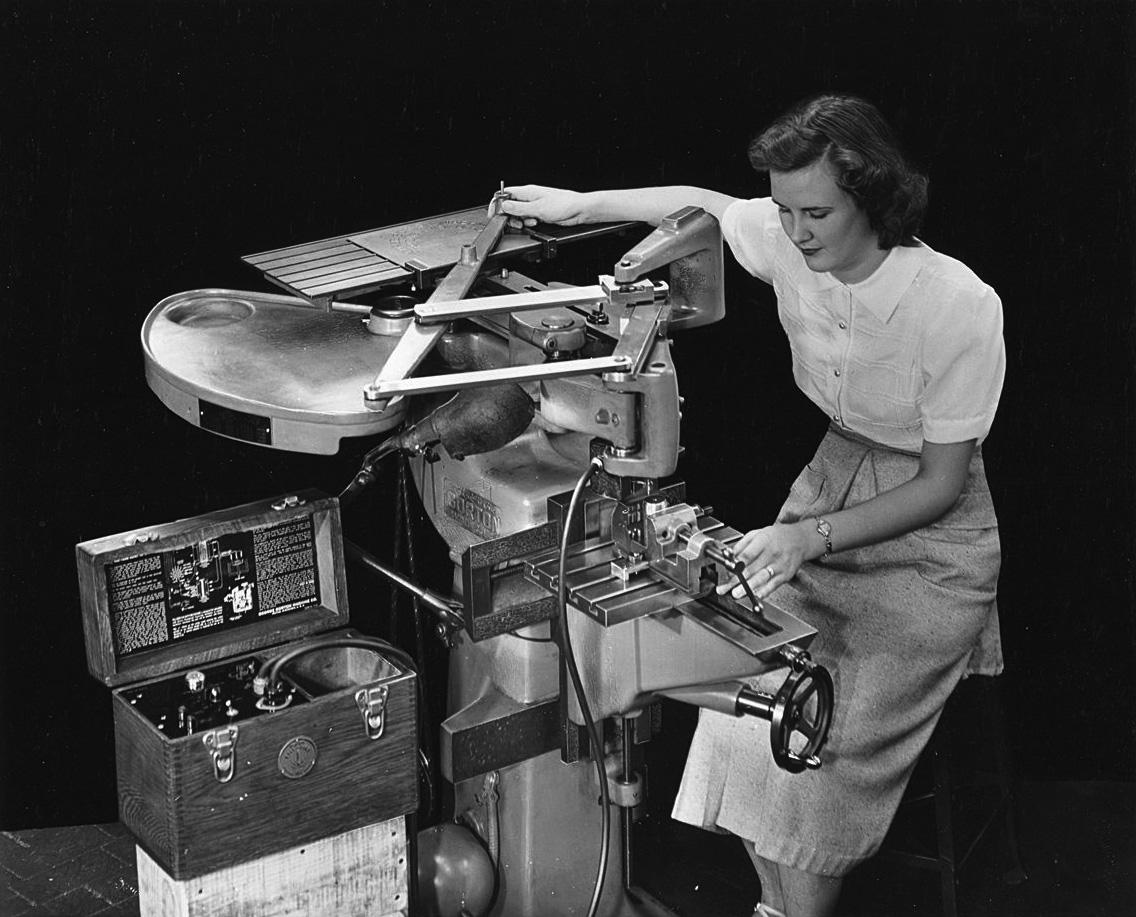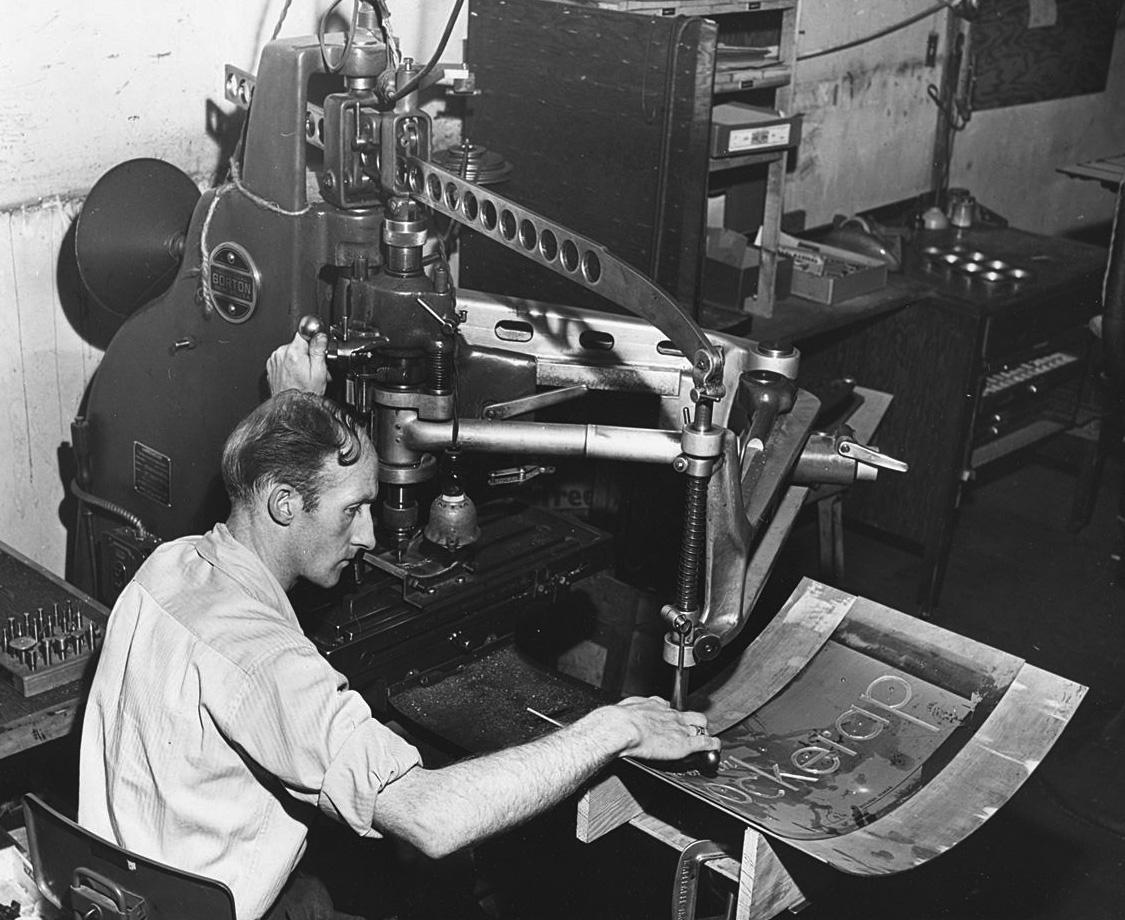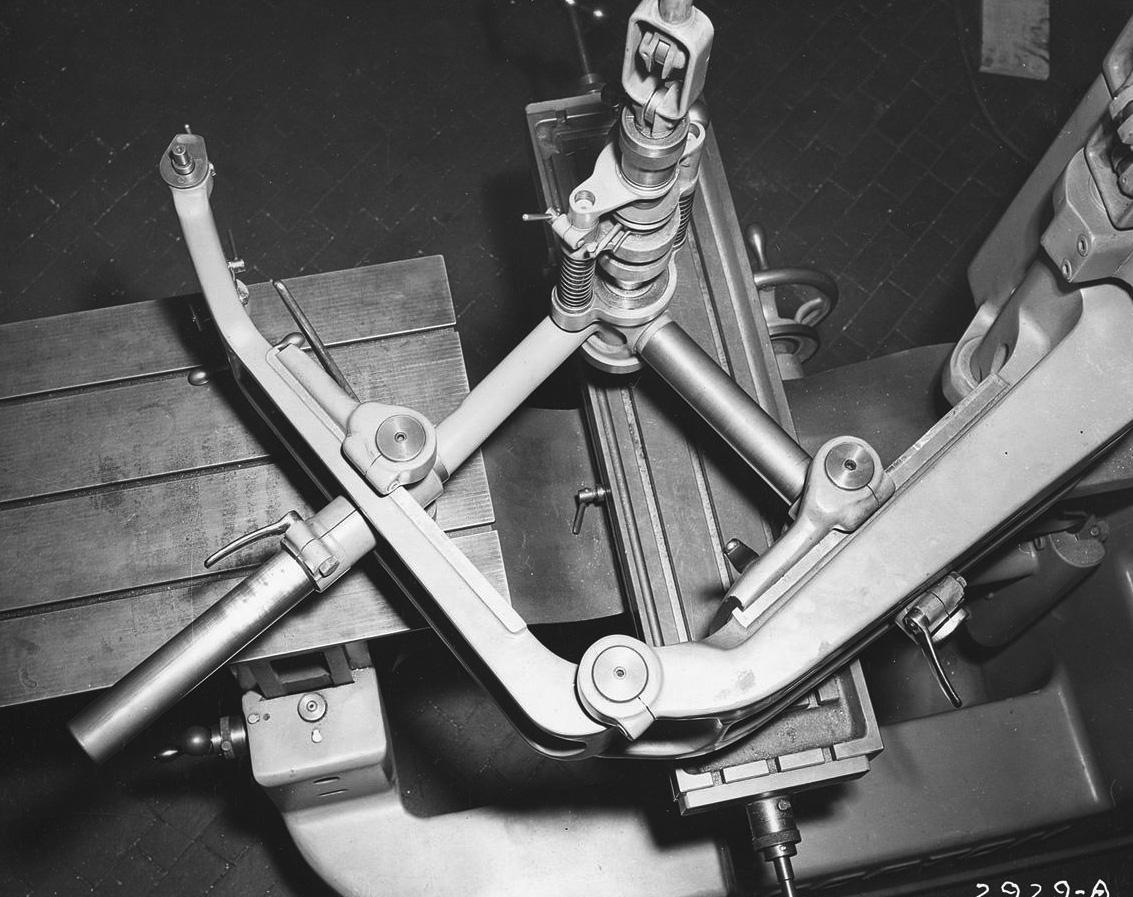
Pantograph began in 2009 as a faithful recreation of a standard typeface from the British pantograph sign engraving system – a mechanical marvel that used parallel linkages to duplicate and scale letters for industrial signage.
These mechanical letters populate our urban landscape, warning of dangers and declaring load limits with utilitarian authority. After more than a decade of development, the original single style evolved into a comprehensive family that spans five widths – from Compressed to Extended – and five weights – from Light to Bold.
The design maintains its industrial heritage while offering contemporary features, stylistic alternates, and an extensive set of marks and symbols, making it as versatile in digital environments as its predecessor was in physical space.
OpenType Features
CASE SENSITIVE
FRACTIONS
SINGLE STORY a AND g
TABULAR NUMERALS